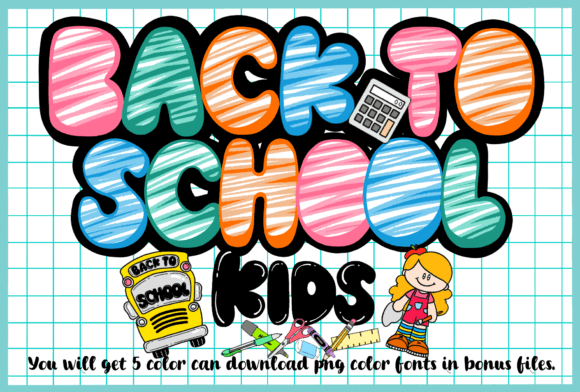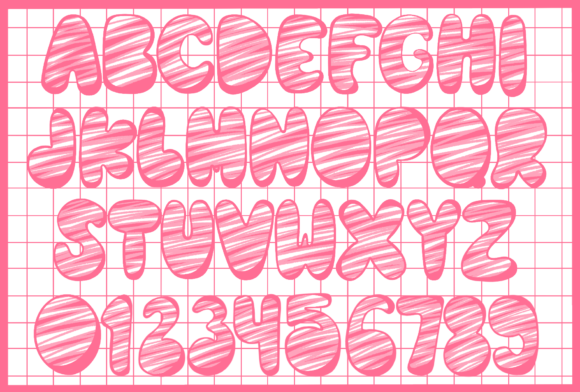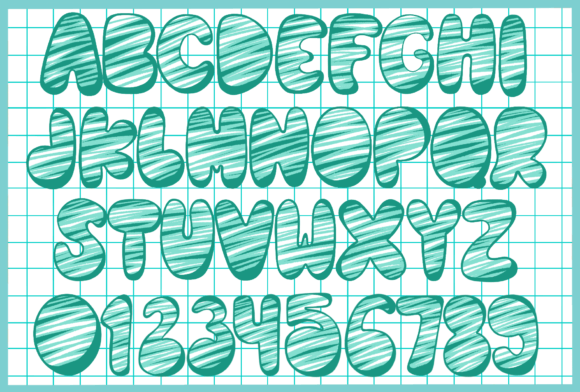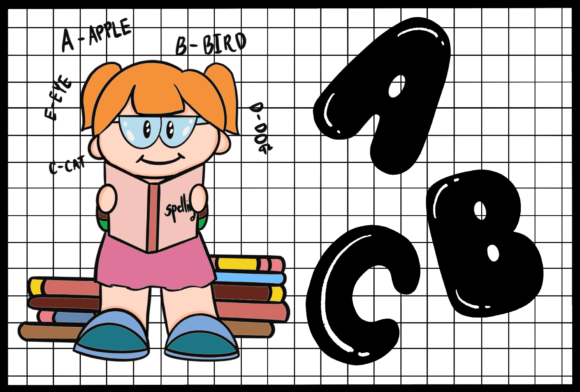
Black to School Kids Font
“Black to School Kids” is a fun and cool font with letters that look like they were drawn with crayons or markers. It’s perfect for making school projects, posters, or crafts look exciting and creative.